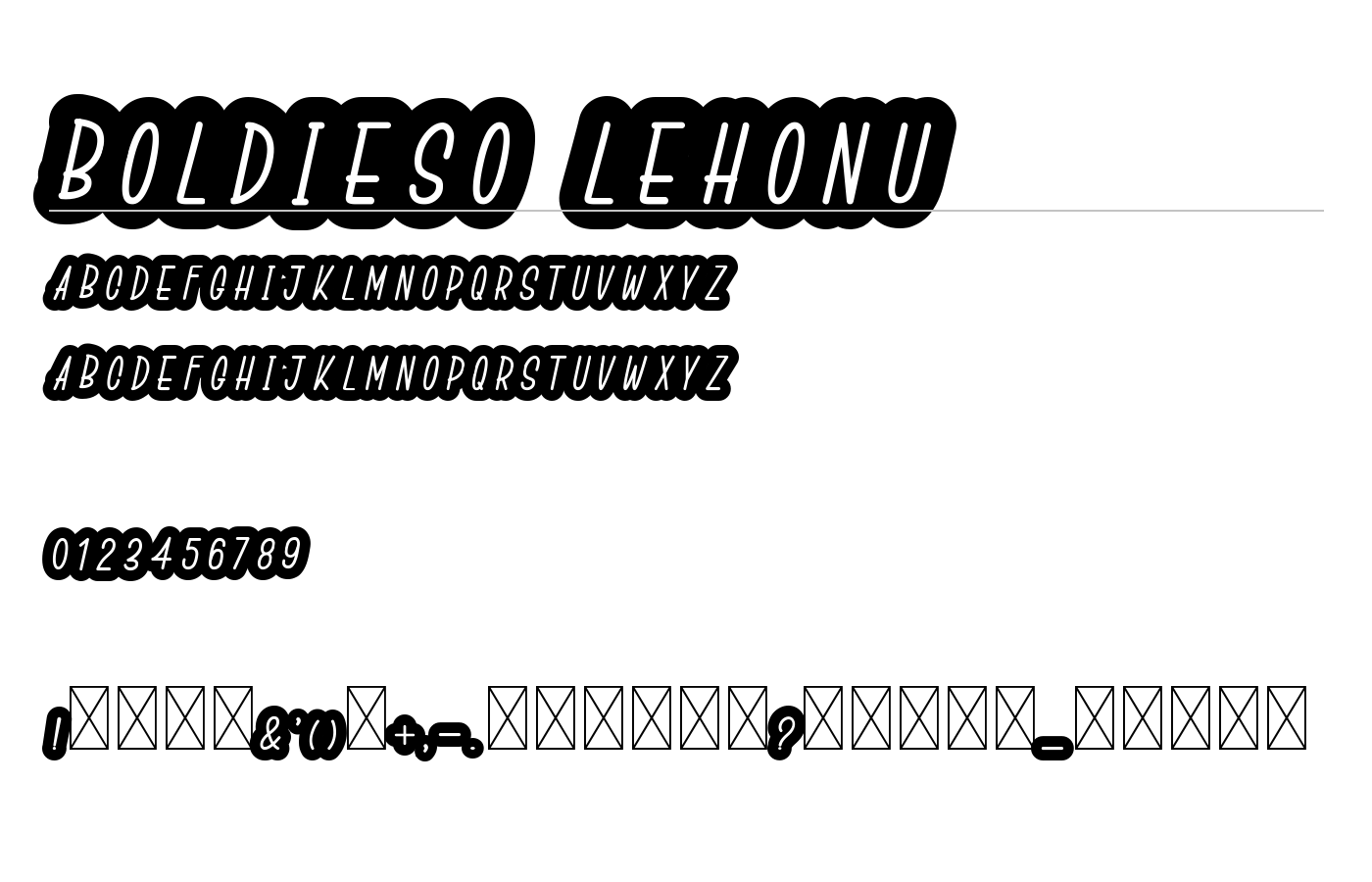
Boldieso Lehonu is a bold, condensed sans serif font with a tall, narrow structure and a playful, almost handwritten feel. Its thick black shadow creates a strong impact and a lively, retro vibe, making it perfect for eye-catching headlines, logos, and display uses where personality and energy are key. This font works best in designs seeking a striking, dynamic look with a touch of fun and uniqueness.
Boldieso Lehonu Font
About Boldieso Lehonu Font
| Font family | Boldieso Lehonu Font |